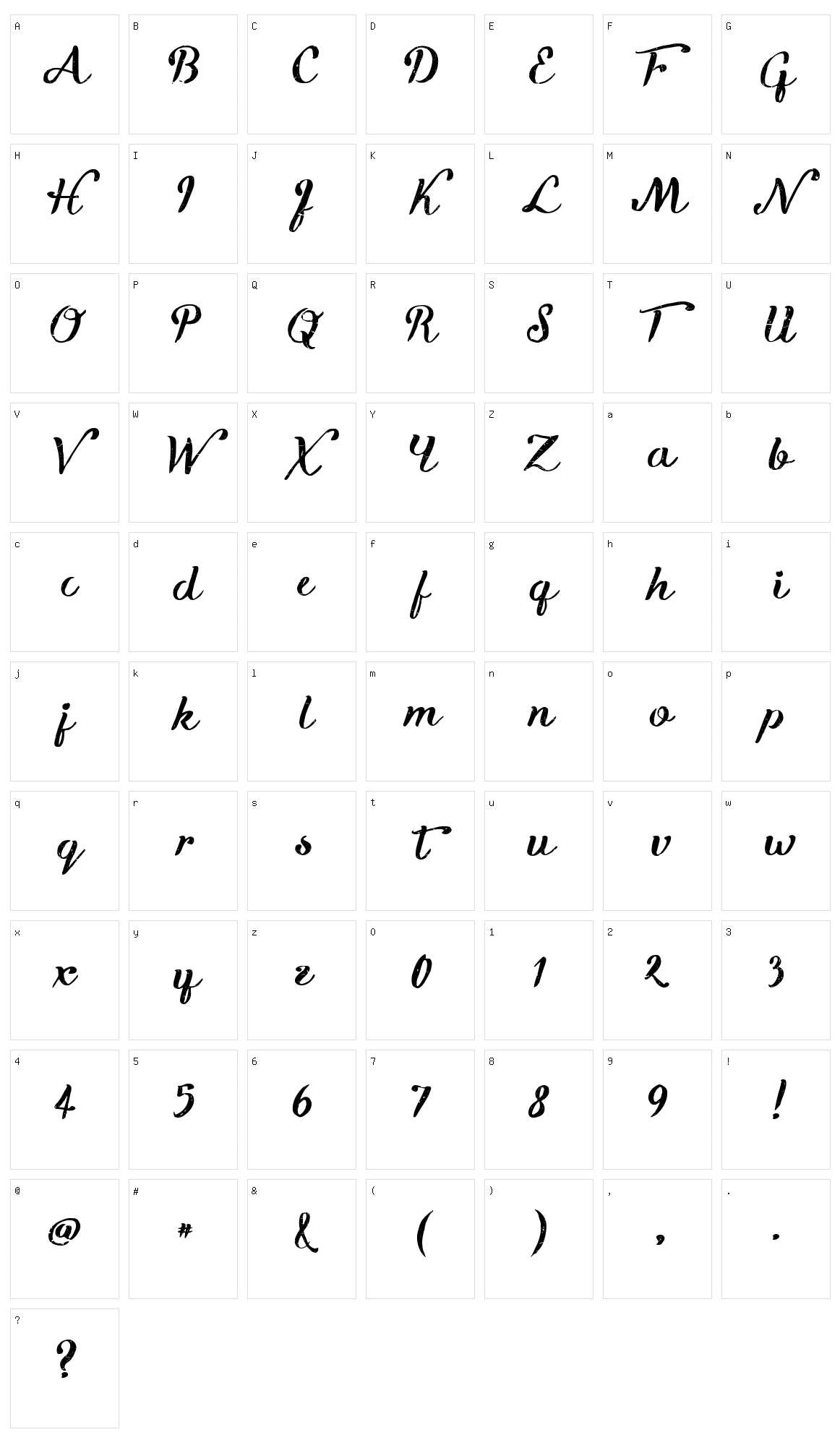
ÿþK I K E L E T B R U S H i s t h e b r u s h p e n s k e t c h v e r s i o n o f a s p r i n g - i n s p i r e d n e w s c r i p t f o n t c a l l e d "